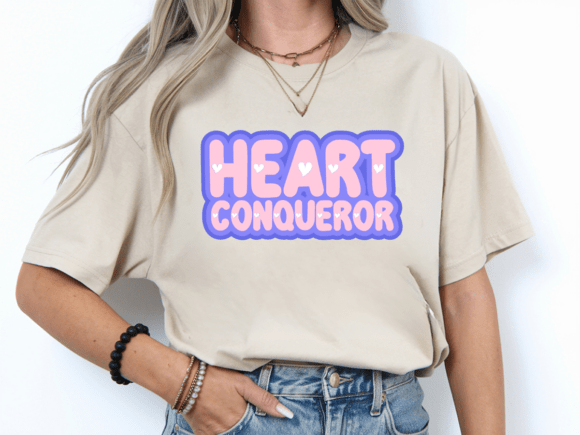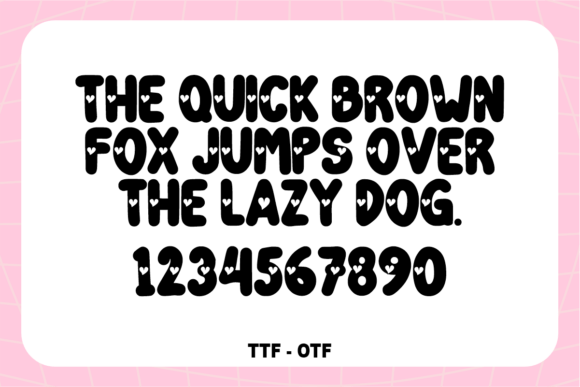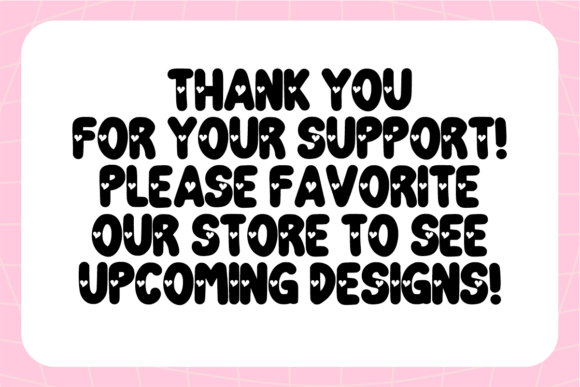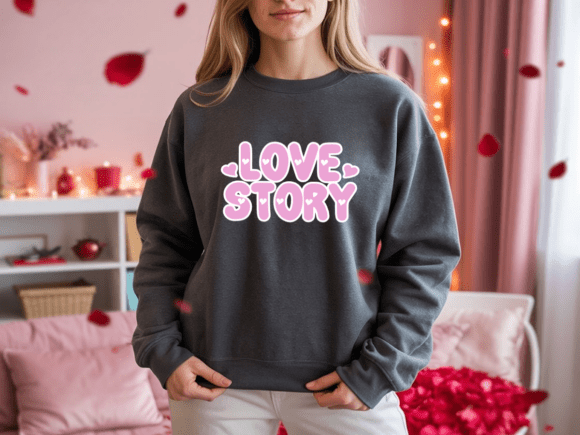
Heart Bubbles Font: The Sweetest & Most Playful Bubbly Love Font for Your Designs ππβ¨
Are you looking for a font that can add a touch of love, joy, and whimsy to your creative projects? Look no further than Heart Bubbles, the adorable display font that’s perfect for designers and crafters who want to make their designs overflow with love! π
Heart Bubbles features a bold, bubbly structure accented with sweet heart cutouts inside each letter, making it the ultimate choice for romantic, celebratory, or children-themed designs. With its chunky shapes and soft, rounded edges, this font is incredibly eye-catching and fun, guaranteed to bring a smile to anyone’s face! π
What Makes Heart Bubbles So Special?
So, what sets Heart Bubbles apart from other fonts? Here are just a few reasons why this font is a must-have for designers and crafters:
- Unique Heart Cutouts: Each letter features sweet heart cutouts, adding an extra touch of love and whimsy to your designs.
- Bold & Bubbly Structure: The font’s chunky shapes and soft, rounded edges make it perfect for creating eye-catching designs that pop!
- Versatile: Heart Bubbles is suitable for a wide range of projects, from romantic designs to children’s themes, and everything in between.
Perfect for These Design Projects
Heart Bubbles is the perfect font for a variety of design projects, including:
- π Valentineβs Day Cards & Romantic Invitations: Add a touch of love and romance to your Valentine’s Day designs with Heart Bubbles.
- π Kidsβ Apparel, T-shirts, & Custom Merchandise: Create fun and playful designs for kids’ apparel and custom merchandise that kids will love.
- π Nursery Wall Art & Baby Milestone Cards: Add a sweet and sentimental touch to nursery wall art and baby milestone cards.
- π Sticker Design, Scrapbooking, & DIY Crafts: Use Heart Bubbles to create adorable stickers, scrapbook pages, and DIY crafts.
- π Birthday Party Decorations & Greeting Cards: Create festive and fun designs for birthday party decorations and greeting cards.
- π Branding for Boutiques, Gift Shops, or Bakeries: Add a touch of whimsy and charm to your branding with Heart Bubbles.
- π Social Media Graphics & Cute Quote Art: Create engaging and adorable social media graphics and quote art with Heart Bubbles.
Why Choose Heart Bubbles?
With so many fonts available, why choose Heart Bubbles? Here are just a few reasons why designers and crafters love this font:
- Easy to Read: Despite its playful and whimsical design, Heart Bubbles is easy to read, making it perfect for designs that need to be both fun and functional.
- Highly Versatile: Heart Bubbles can be used for a wide range of projects, from digital designs to print projects.
- Unique & Eye-Catching: This font is sure to grab attention with its bold, bubbly structure and sweet heart cutouts.
Add a Sprinkle of Affection to Your Designs
If you’re looking for a font that can add a touch of love and whimsy to your designs, look no further than Heart Bubbles. With its unique heart cutouts, bold and bubbly structure, and versatility, this font is sure to become a favorite in your design toolkit. π